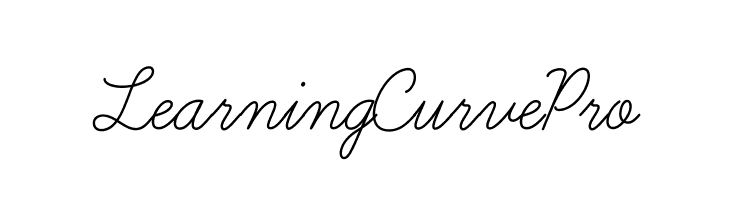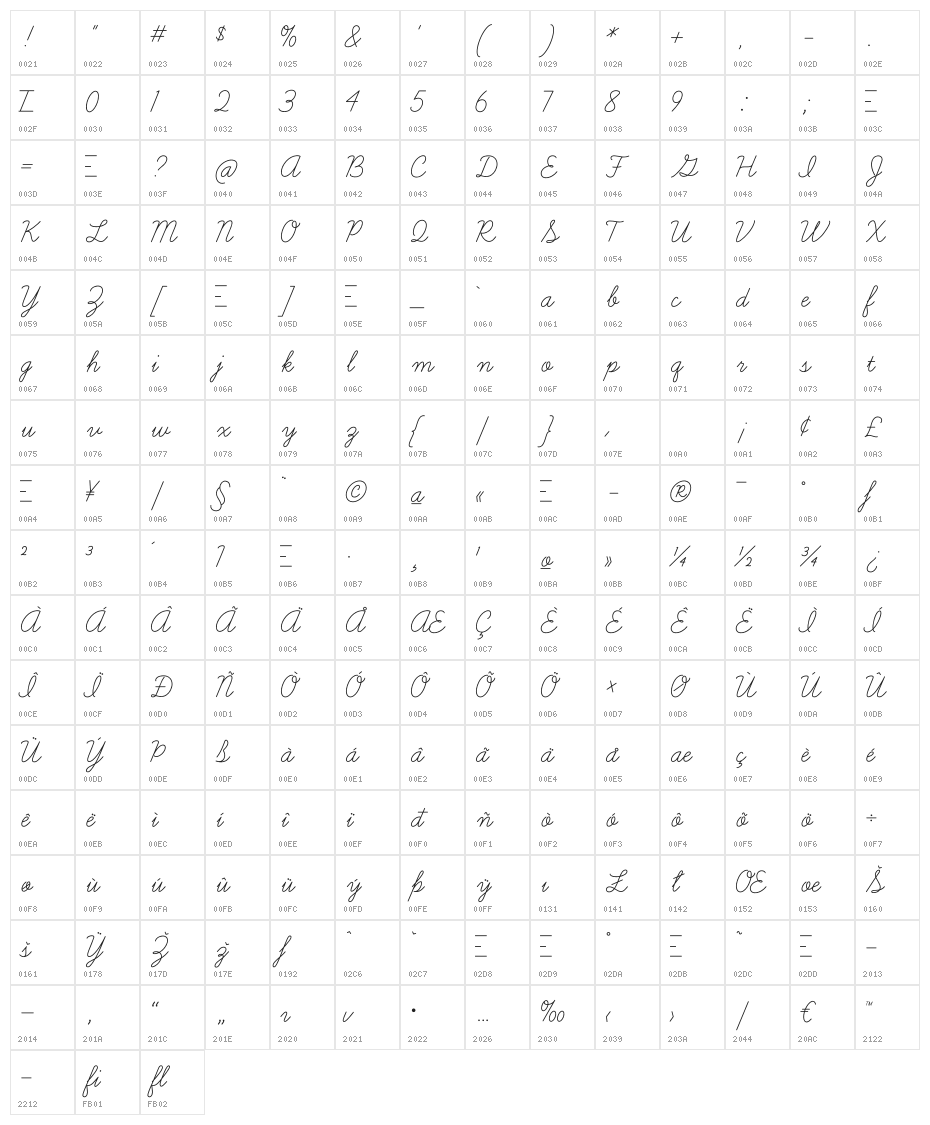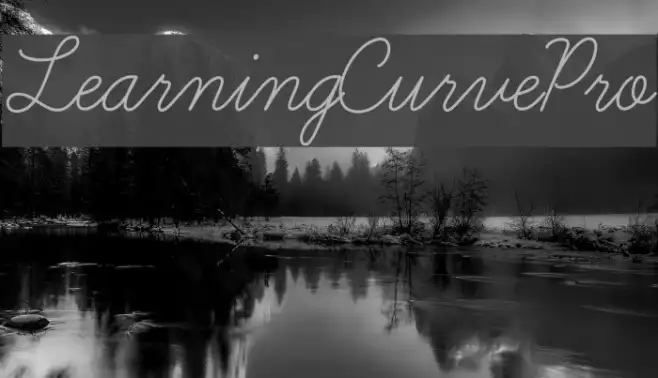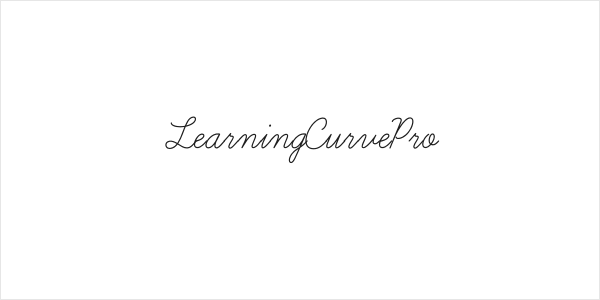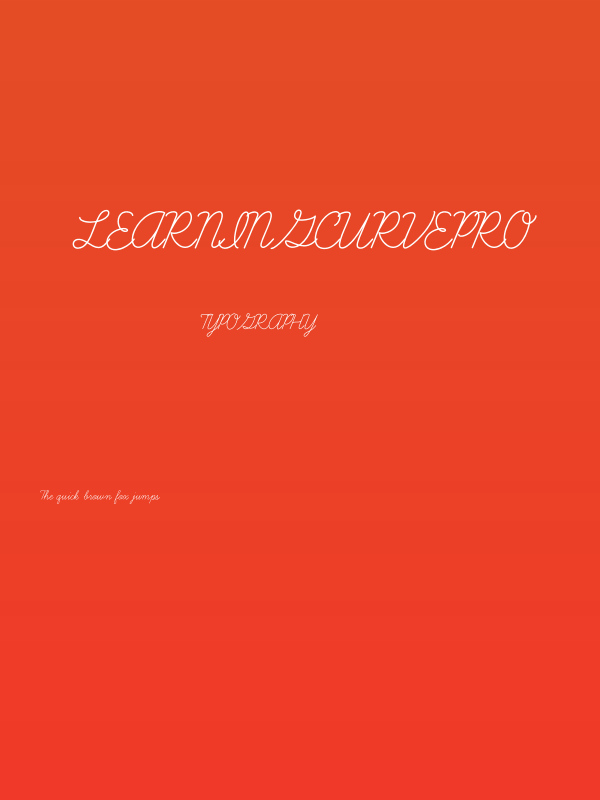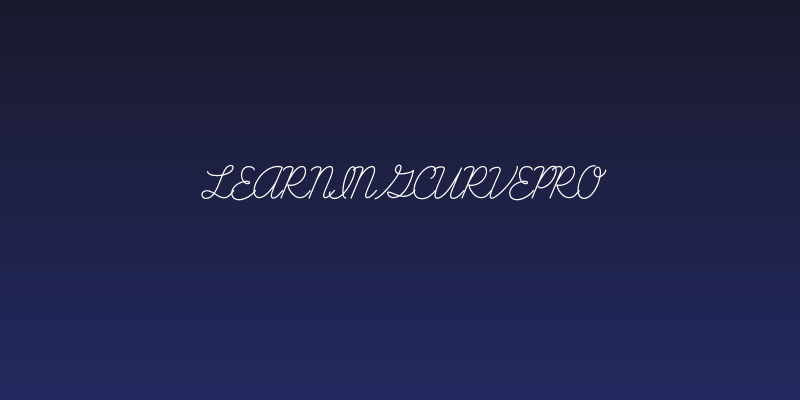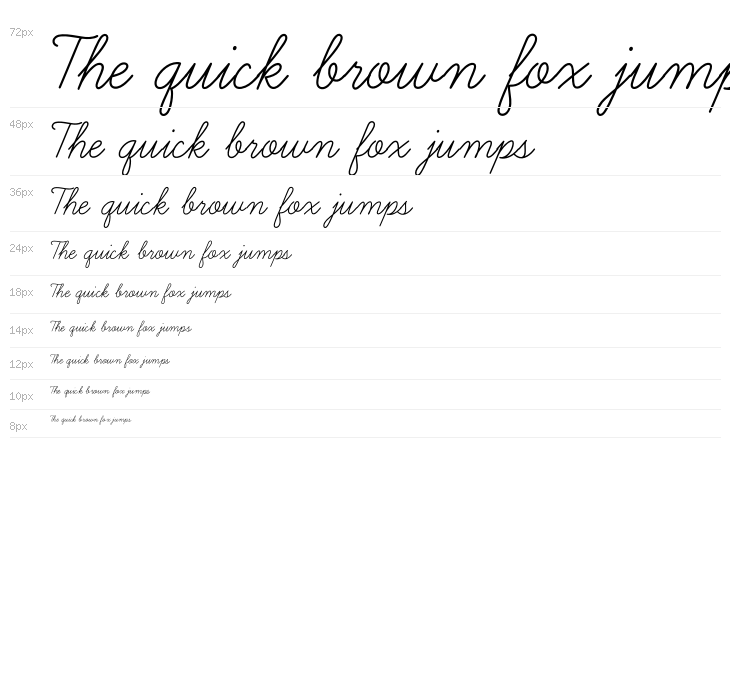
LearningCurvePro Font
LearningCurvePro Description
This font exudes a handwritten, cursive style with elegant, flowing lines that mimic natural handwriting. The characters are connected, creating a seamless and fluid appearance. The uppercase letters are slightly more embellished, while the lowercase letters maintain a consistent, smooth flow. The numerals and special characters are crafted to match the overall cursive aesthetic, ensuring a harmonious look across all elements. This font is ideal for projects that require a personal touch, such as invitations, greeting cards, or branding materials that aim to convey elegance and sophistication.
| Use Case | Invitations, Greeting cards, Personal branding |
| Proposed Projects | Ideal for invitations, greeting cards, personal branding, and elegant stationery. |